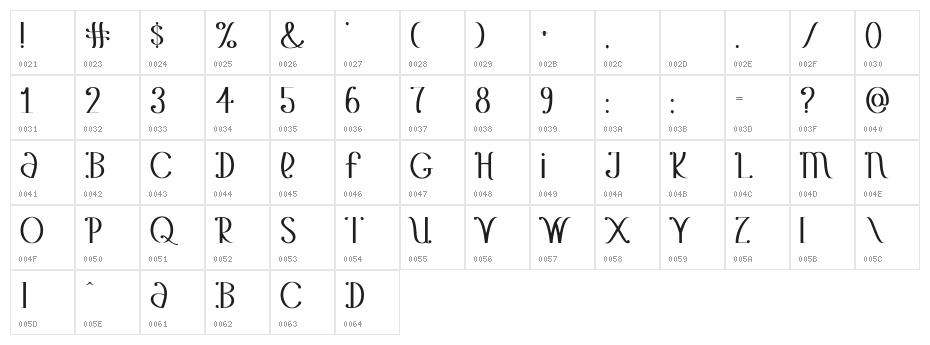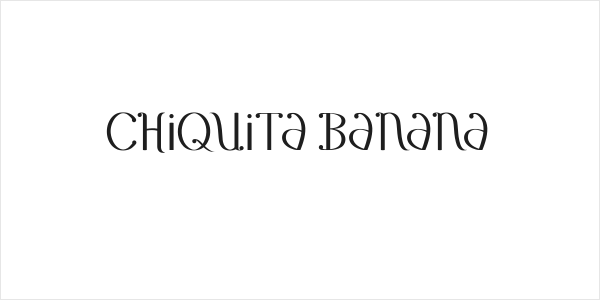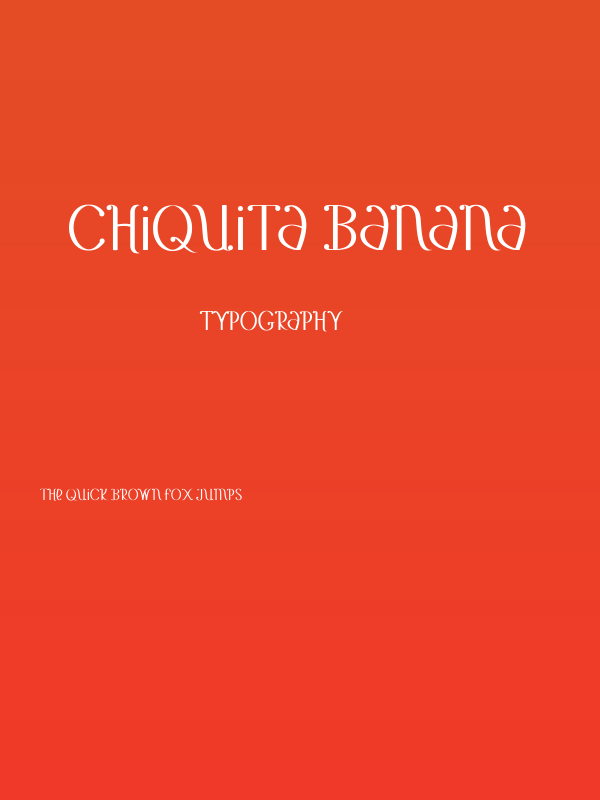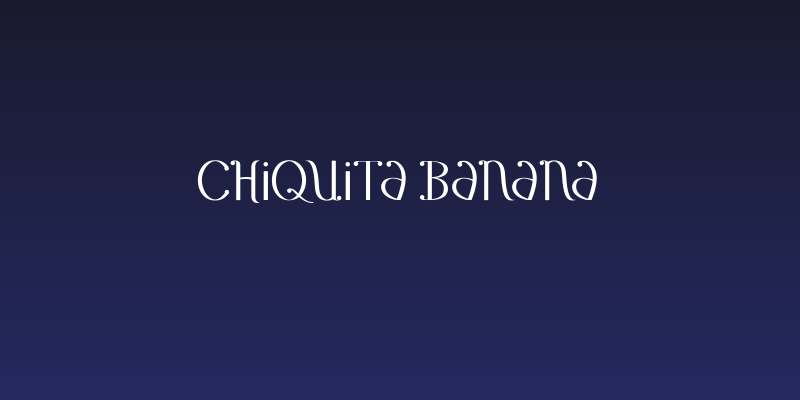
Chiquita Banana Font
Chiquita Banana Description
This font features a whimsical and playful design with a unique twist on traditional letterforms. Each character is adorned with subtle curls and loops, giving it a lively and dynamic appearance. The strokes are consistent in weight, providing a balanced look across both uppercase and lowercase letters. The numerals and special characters maintain the same playful style, ensuring a cohesive visual experience. This font's distinct personality makes it suitable for creative and artistic projects where a touch of fun is desired.
| Proposed Projects | Ideal for children's books, playful branding, greeting cards, and creative posters. |